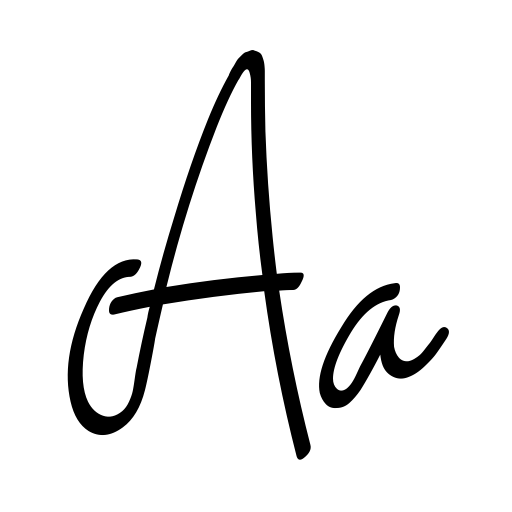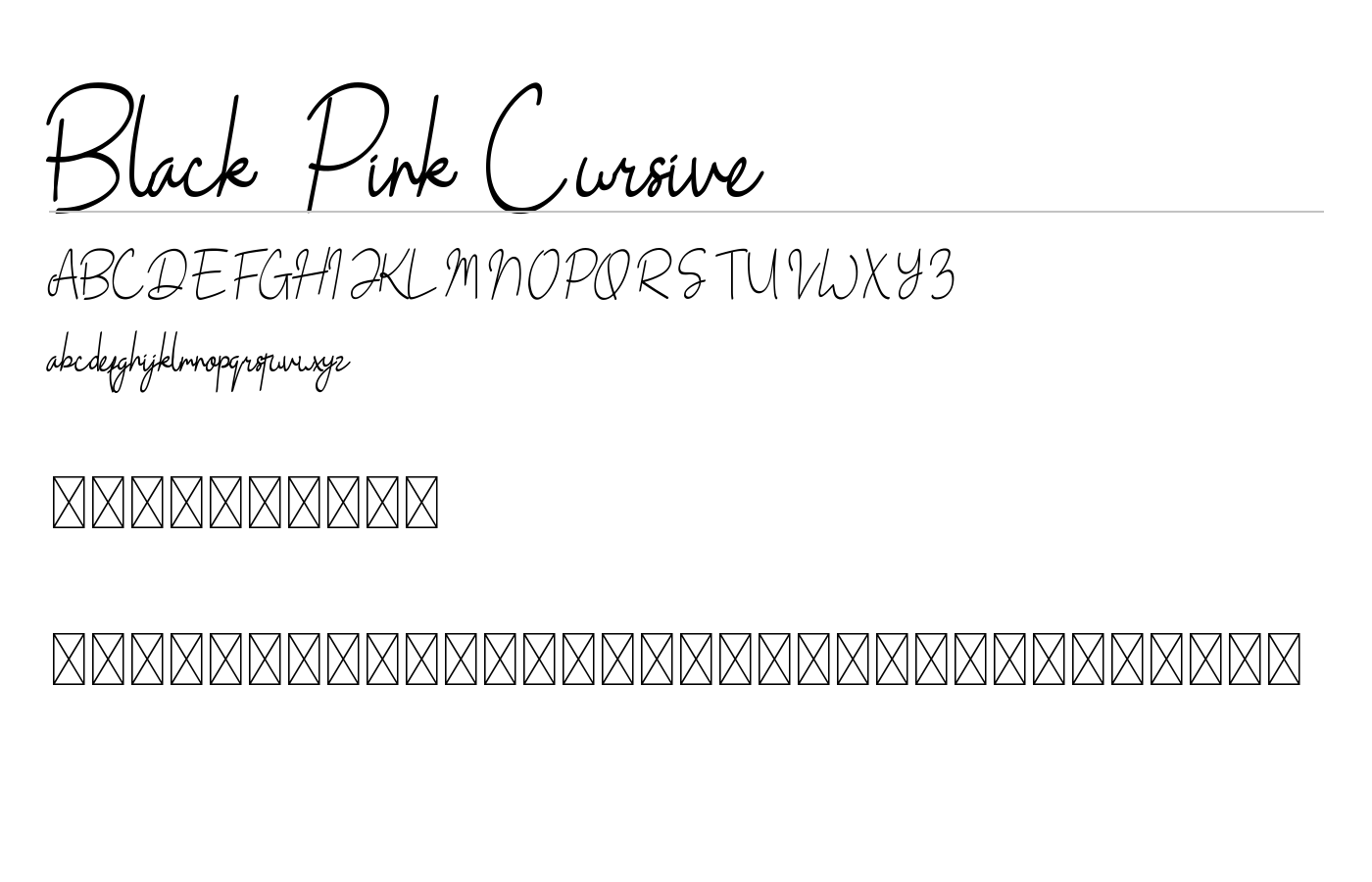
Black Pink Cursive is an elegant, thin script font that mimics natural handwriting with its tall, slender letterforms and smooth, flowing strokes. Its delicate style and casual charm make it ideal for invitations, branding, and projects that need a personal, sophisticated touch. This font works beautifully in designs where a light, airy, and refined handwritten look is desired.
Black Pink Font
About Black Pink Font
| Font family | Black Pink Font |
| Designer | Axelzonestudio |